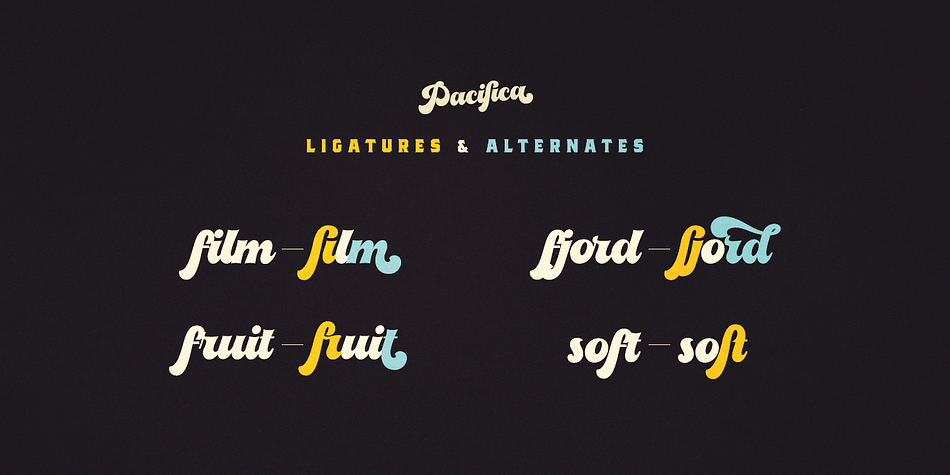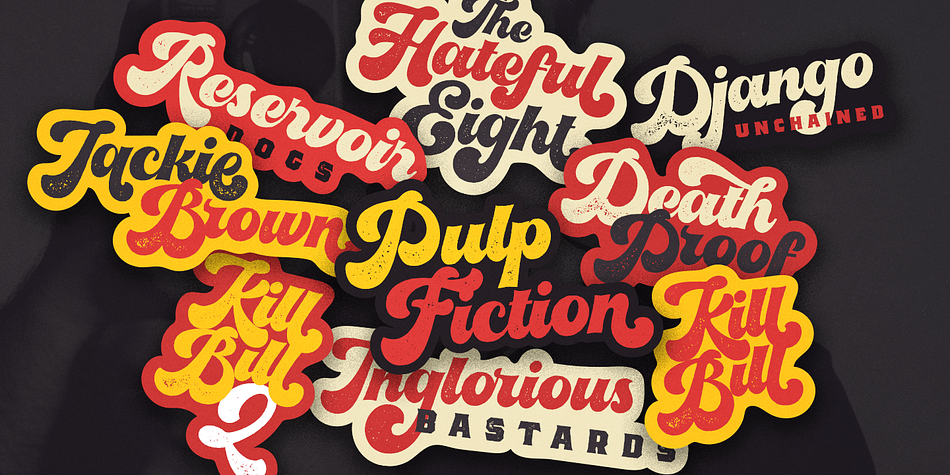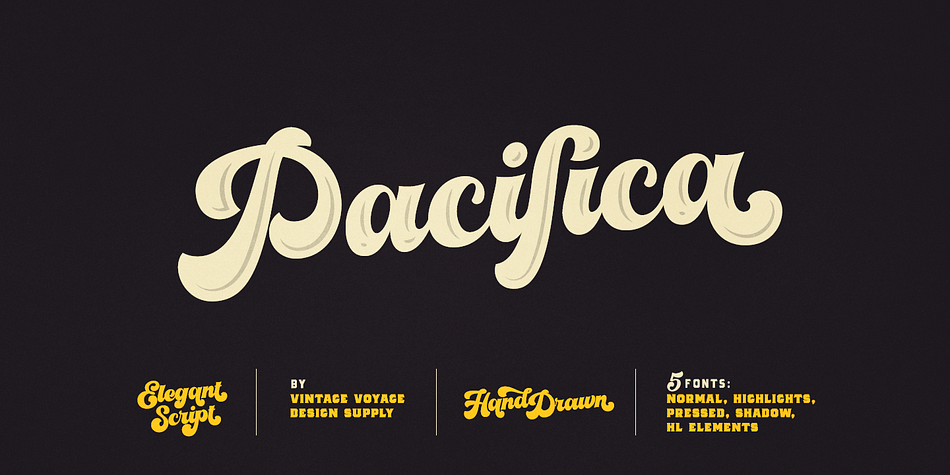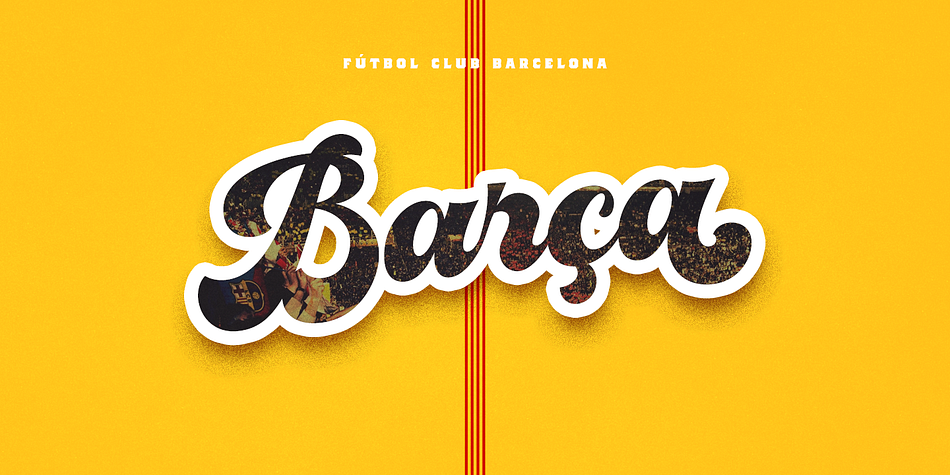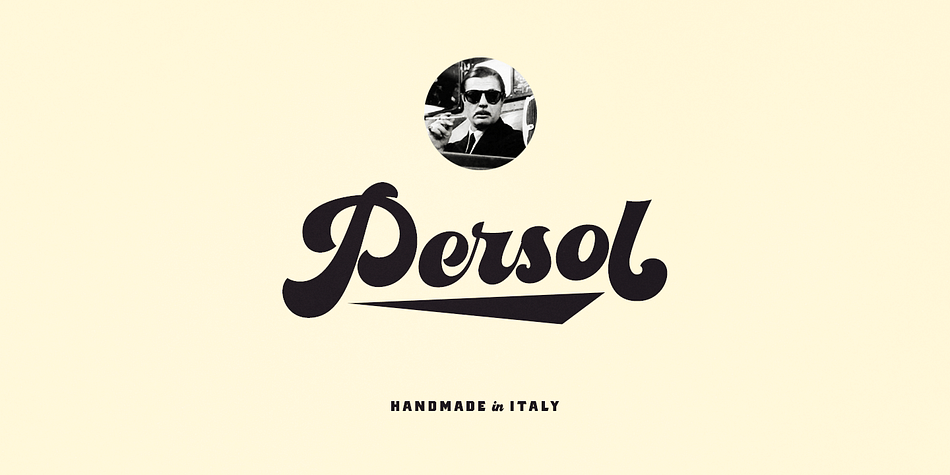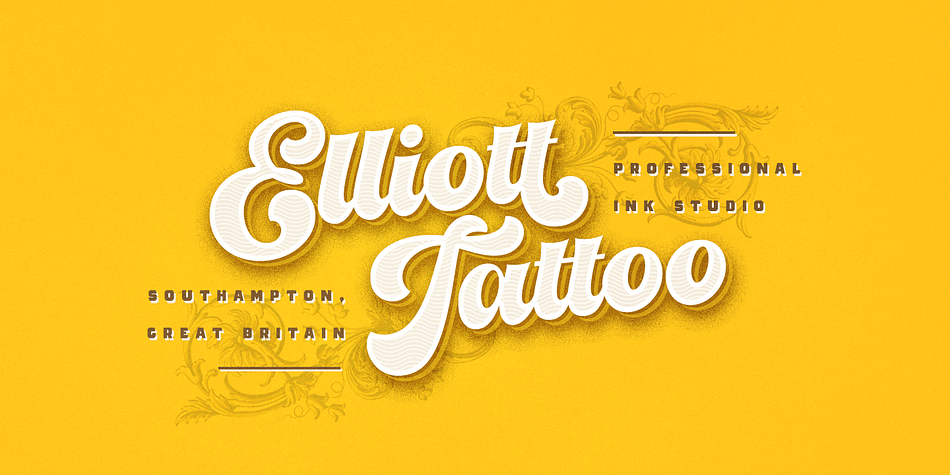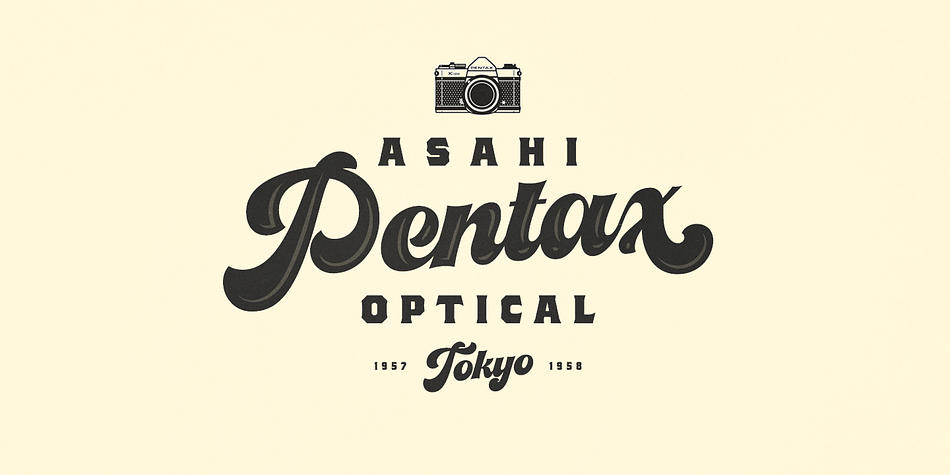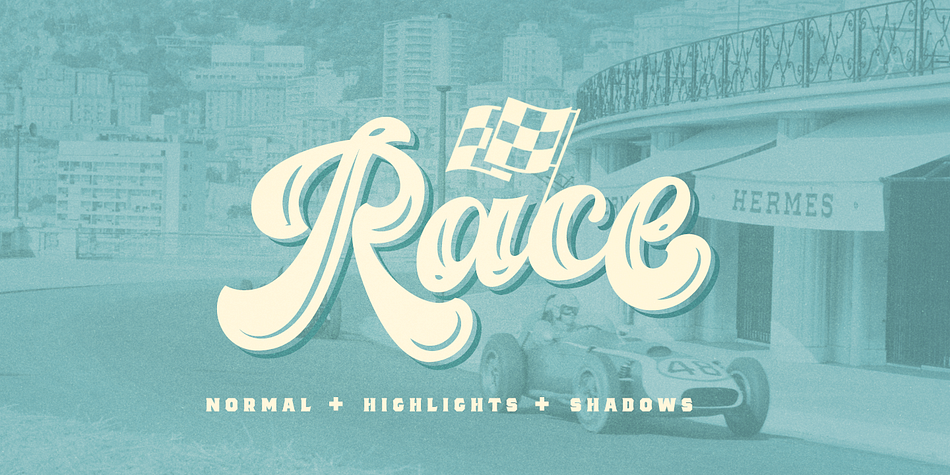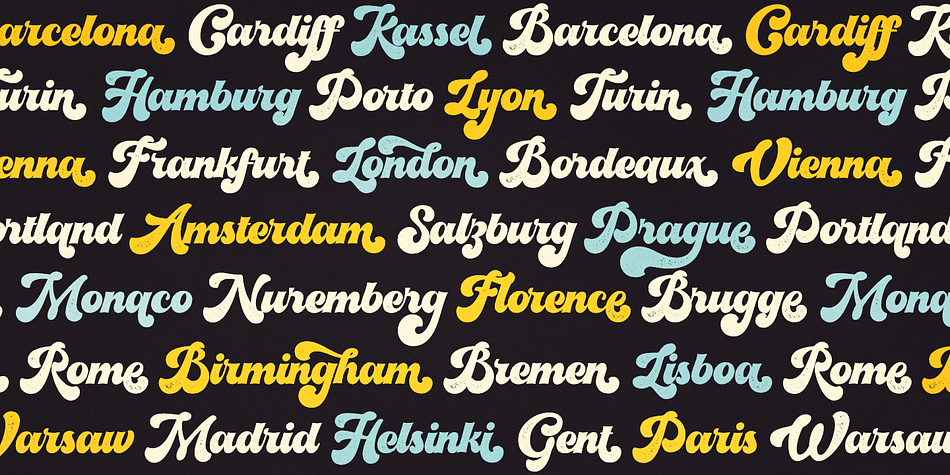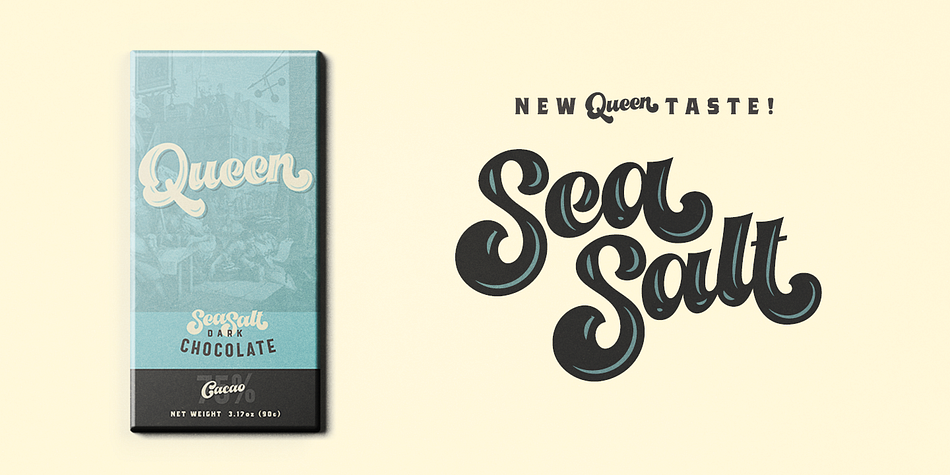
Designed by Pavel Korzhenko, VVDS Pacifica is a multiple classification font family. This typeface has five styles and was published by Vintage Voyage Design.
Pacifica – hand lettered elegant bold script for decorative typography inspired by American branding typography from end of XX century. Comes with different variates – filled, highlighted or pressed. Perfectly for headers, signs, logos, prints, etc. Comes with ending and some middle alternates and some standard ligatures.